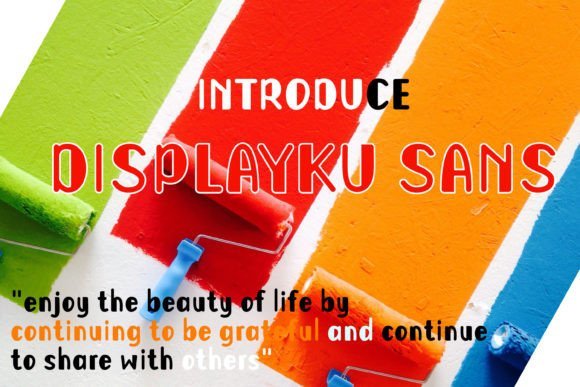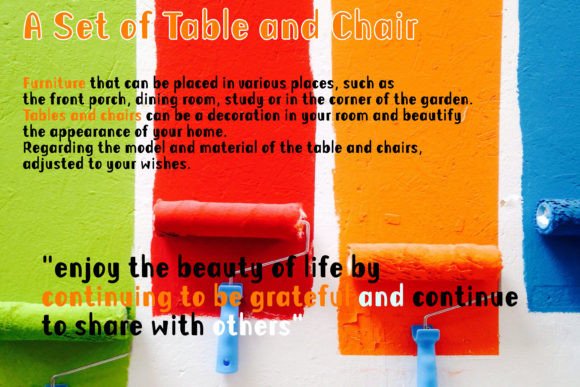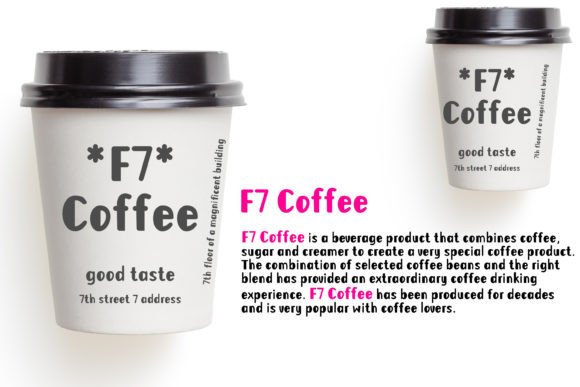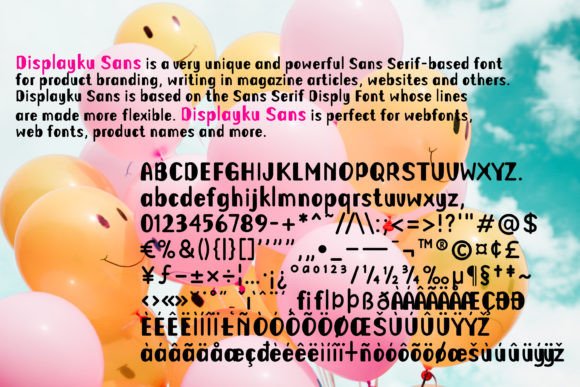
Unleash Your Creative Potential with Displayku Sans Font
Have you ever stared at a blank canvas, waiting for that perfect font to bring your design to life? The moment of inspiration is fleeting, but with the right tool, you can capture it and turn your vision into a stunning reality. That’s where Displayku Sans Font comes in – a modern, versatile display font that’s designed to elevate your creative projects.
This sleek and sophisticated typeface is the perfect companion for designers who crave a unique look without sacrificing readability. With Displayku Sans Font, you can add a touch of sophistication to your logos, posters, and digital interfaces, making it a valuable addition to your design arsenal.
Displayku Sans Font Key Features
- Font Family: Displayku Sans, a sans-serif font designed for digital displays.
- Character Set: Supports a wide range of languages, including Latin, Cyrillic, Greek, and more, making it a versatile font for global applications.
- Unique Characteristics: Displayku Sans features a clean, modern design with geometric shapes and a balanced x-height, making it suitable for both body text and headlines.
Displayku Sans Font Review
Displayku Sans Font is a decent sans-serif font that has some nice qualities, but also some limitations. ✨ One of the things I like about this font is its clean and modern aesthetic. It’s perfect for digital applications where readability is key. The font also has a nice balance of x-height and line spacing, making it easy to read at various font sizes.
Here are some of the features that work well:
- ✨ Clean and modern aesthetic
- ✨ Good balance of x-height and line spacing
- ✨ Suitable for digital applications
- ✨ Compatible with most operating systems
- ⚠️ Limited font weights (only 4 weights available)
- ⚠️ No support for certain special characters
- ⚠️ May not be suitable for printing due to its digital design
Overall, Displayku Sans Font is a solid choice for digital applications where readability is crucial. While it has some limitations, it’s a clean and modern font that can help improve the user experience. However, it may not be the best choice for printing or applications that require a wide range of font weights.
Displayku Sans Font is ideal for headings, titles, and body text that requires a clean and modern look. Use it in combination with other fonts to create a visually appealing design. Some common use cases include:
- Web design and digital marketing materials
Alternatives to Displayku Sans Font for Designers
Montserrat is a sans-serif typeface designed by Julieta Ulanovsky. It’s a modern and clean font, perfect for digital products, mobile apps, and websites. Montserrat is more geometric and has a stronger grid structure compared to Displayku Sans Font, making it ideal for designs that require a strong visual identity.
Open Sans is a highly legible sans-serif font designed by Steve Matteson. It’s a great choice for body text and is widely used in digital products. Open Sans is more rounded and friendly compared to Displayku Sans Font, making it suitable for designs that require a softer and more approachable tone.
Lato is a modern sans-serif font designed by Łukasz Dziedzic. It’s a great choice for designs that require a balance between modernity and readability. Lato is more elegant and refined compared to Displayku Sans Font, making it ideal for luxury brands, corporate designs, and high-end products.
Inter is a modern sans-serif font designed by Rasmus Andersson. It’s a highly legible font that’s perfect for digital products, mobile apps, and websites. Inter is more versatile and adaptable compared to Displayku Sans Font, making it suitable for a wide range of designs, from tech startups to corporate brands.
Q: Is Displayku Sans Font available in various weights and styles?
Yes, Displayku Sans Font comes in multiple weights, including Light, Regular, Medium, Bold, and Black. Each weight provides a unique aesthetic and can be used to create visual hierarchy in your designs. Additionally, Displayku Sans Font also offers italic and oblique styles for added flexibility.
Q: Can I use Displayku Sans Font in conjunction with other fonts?